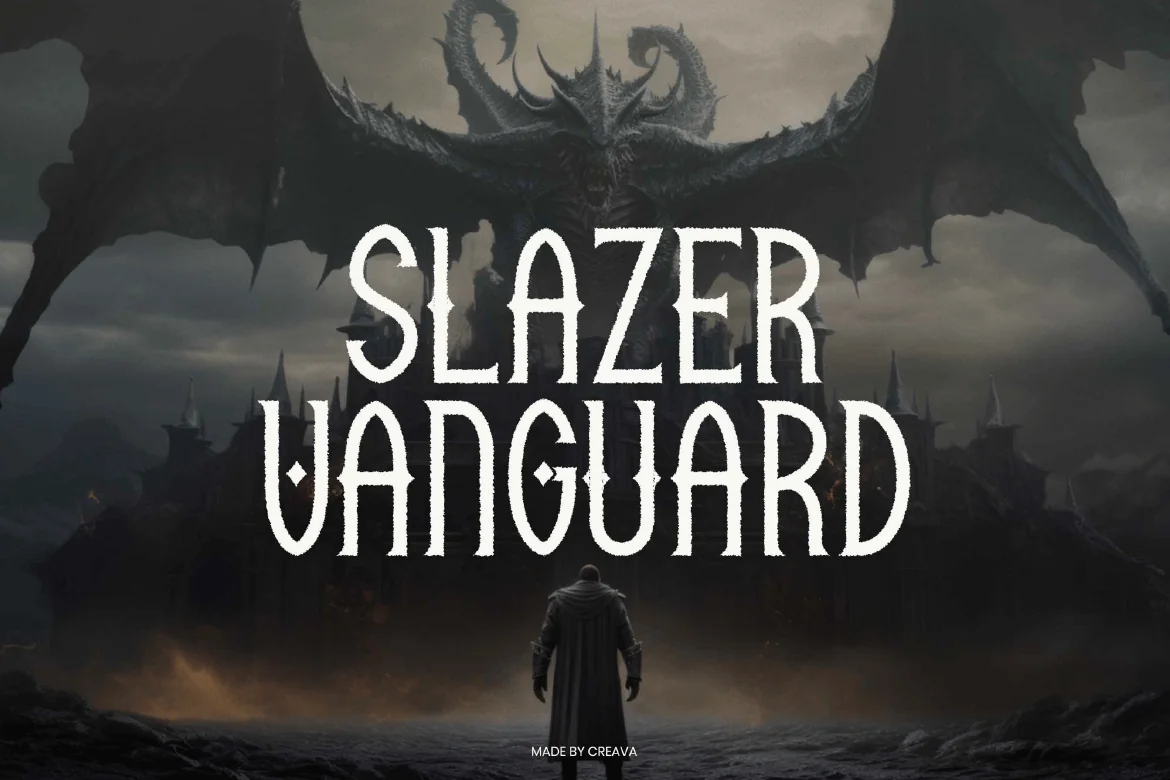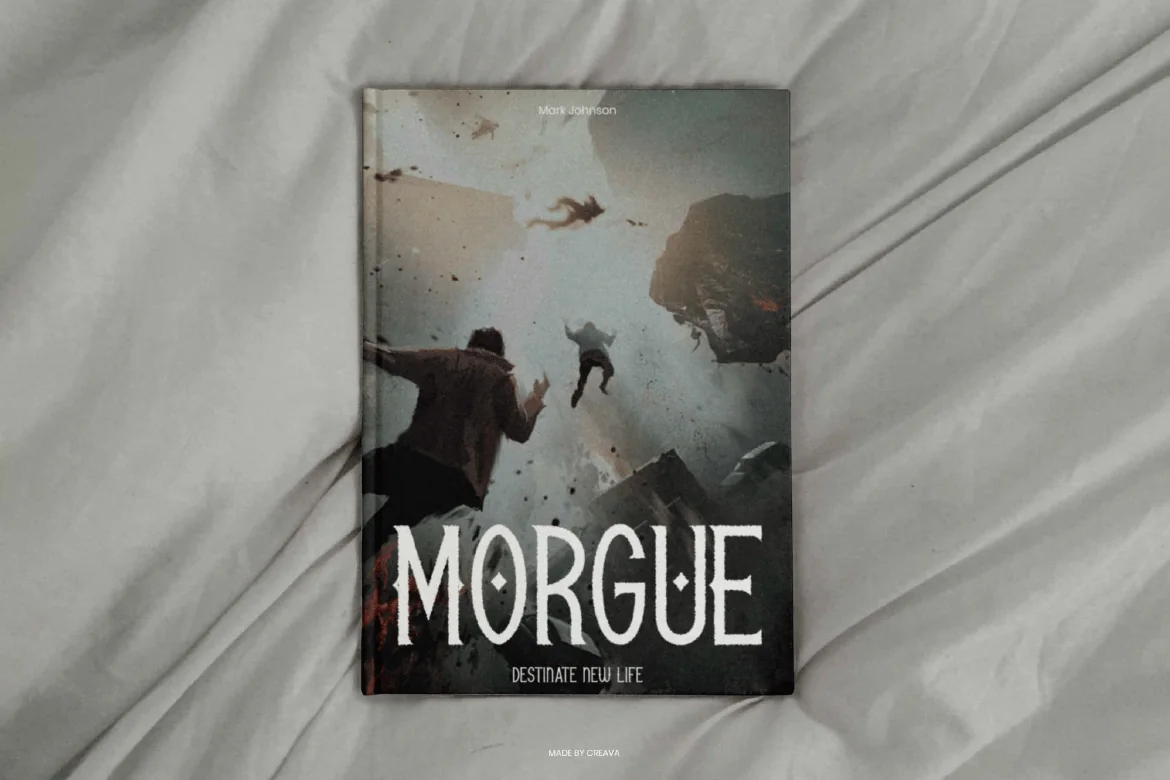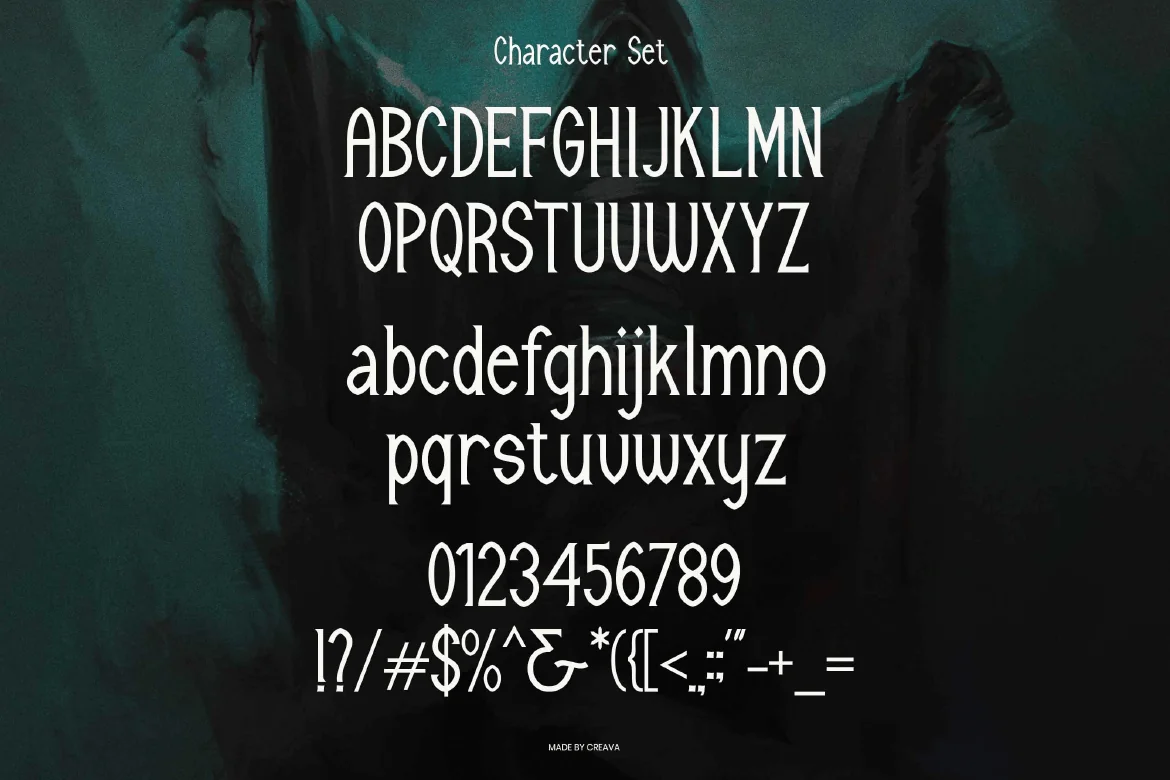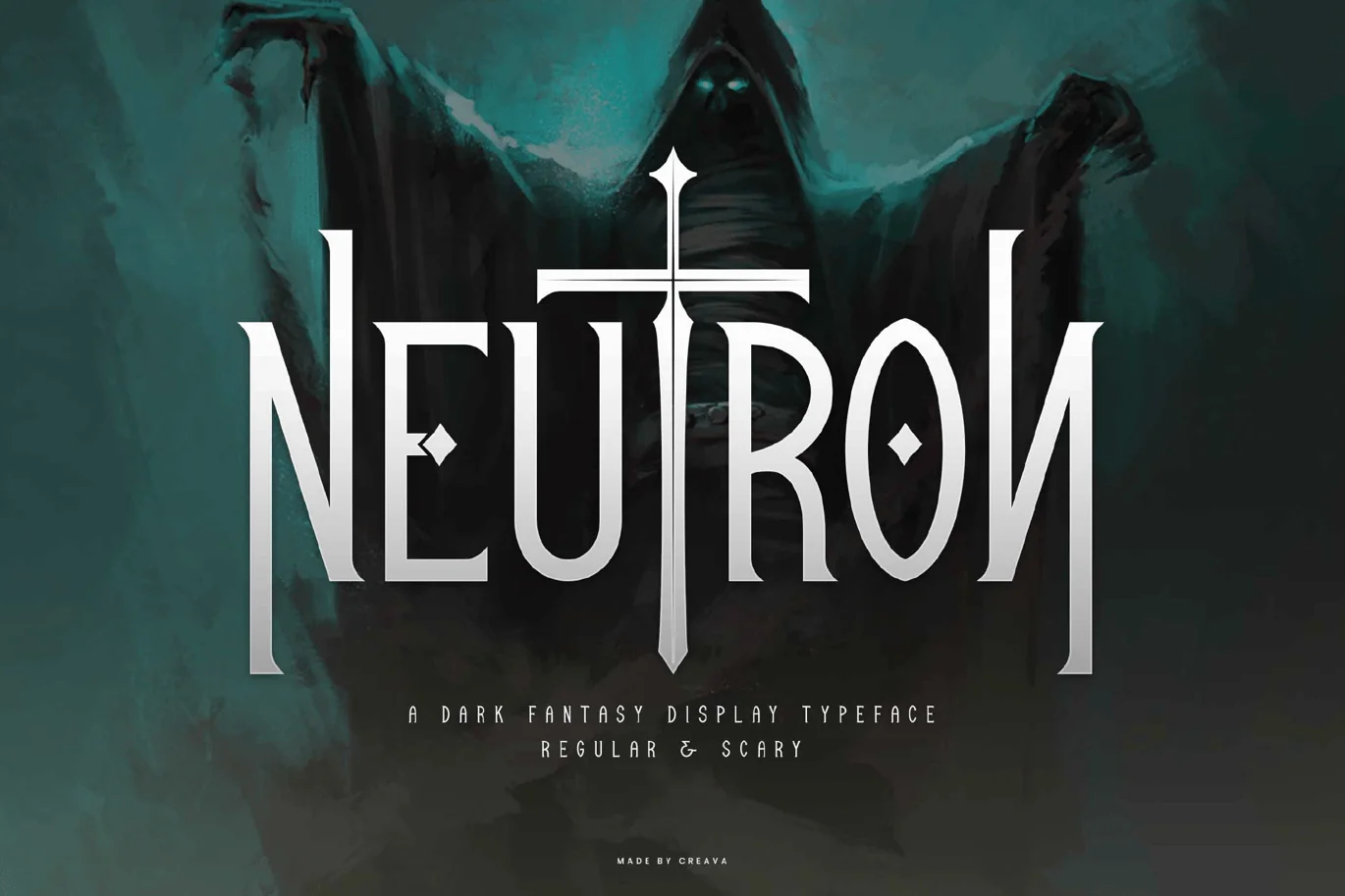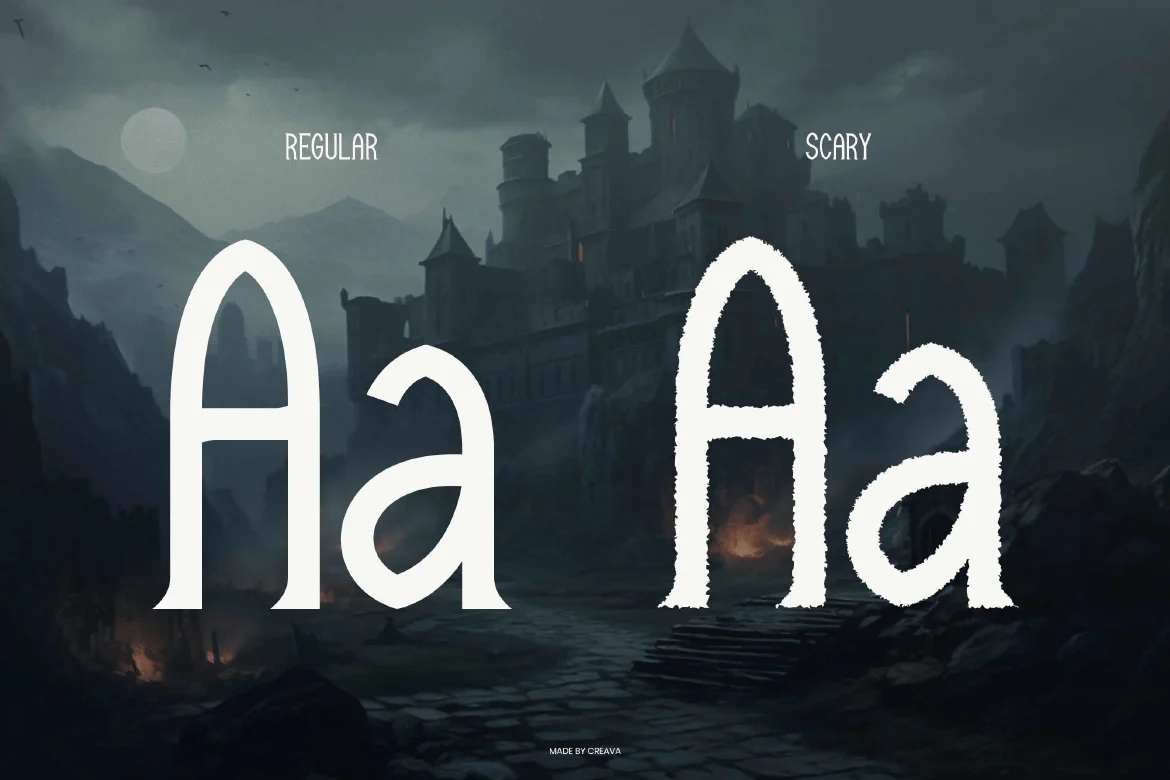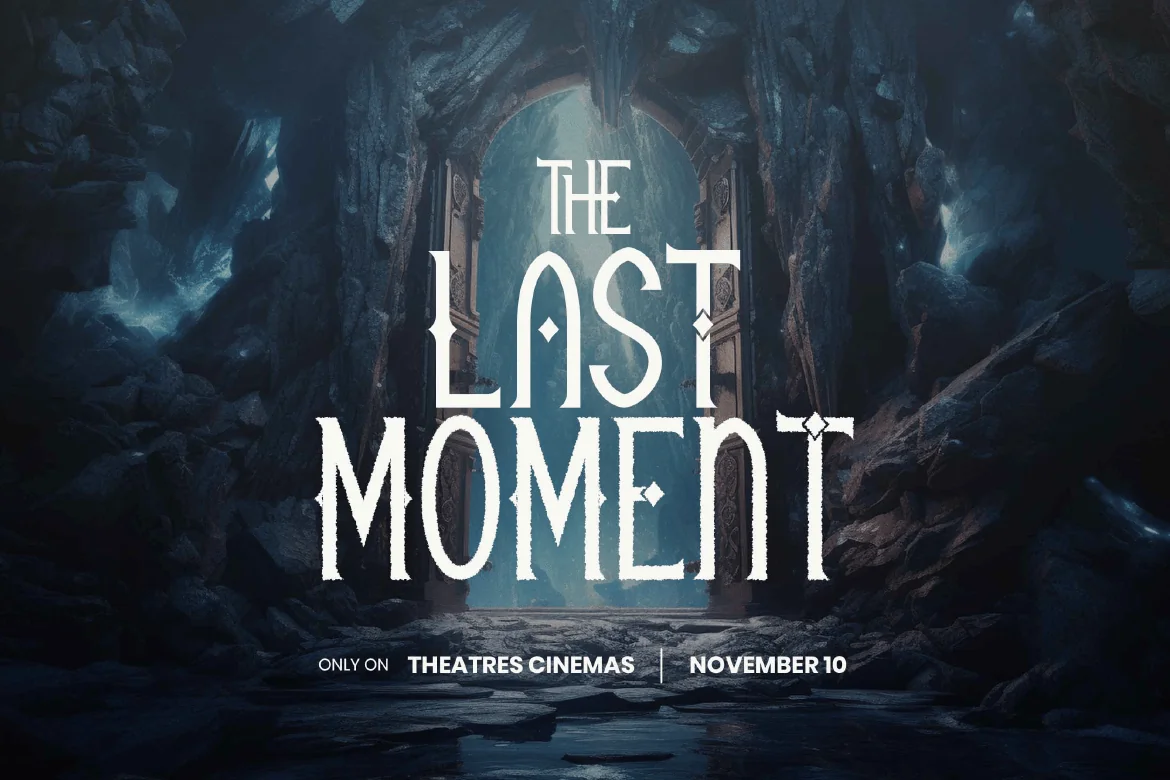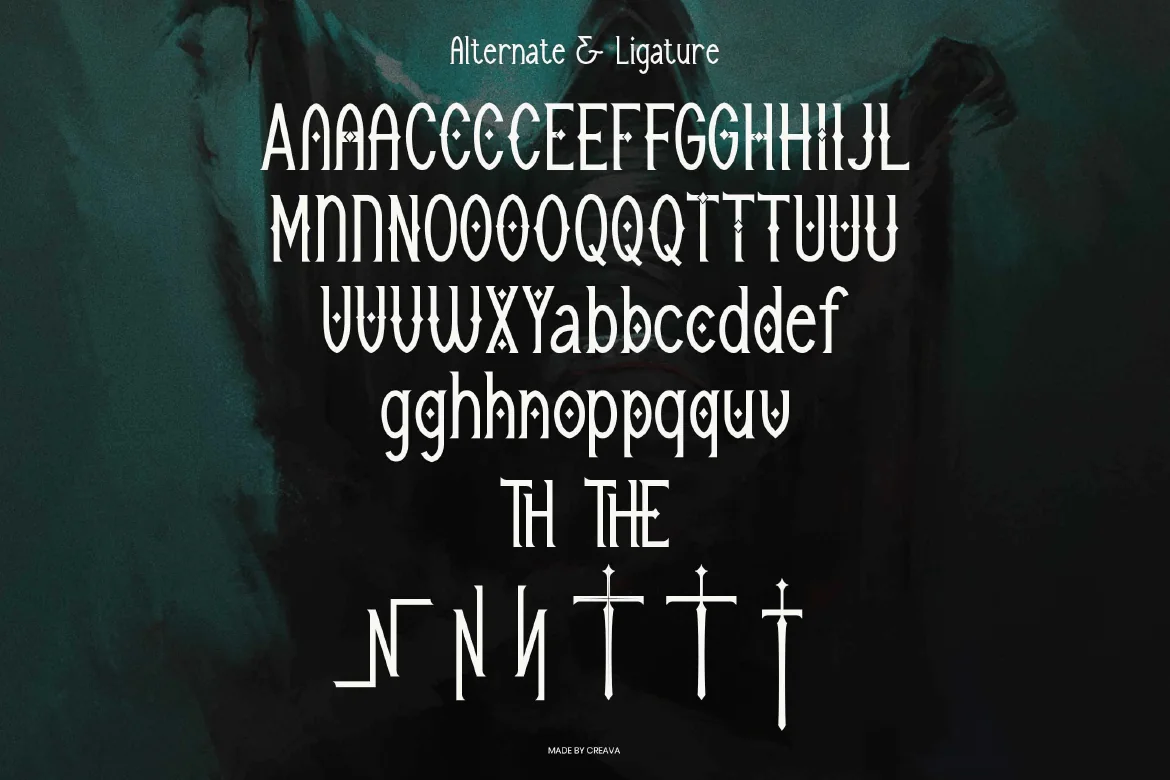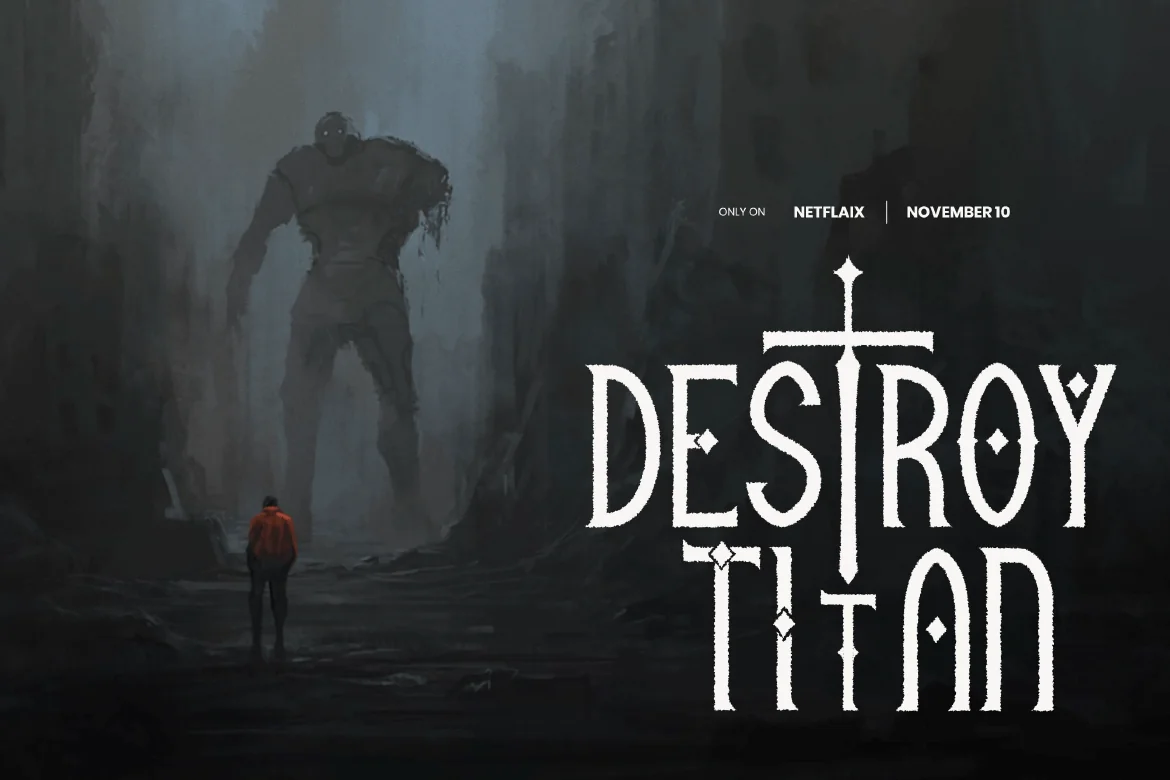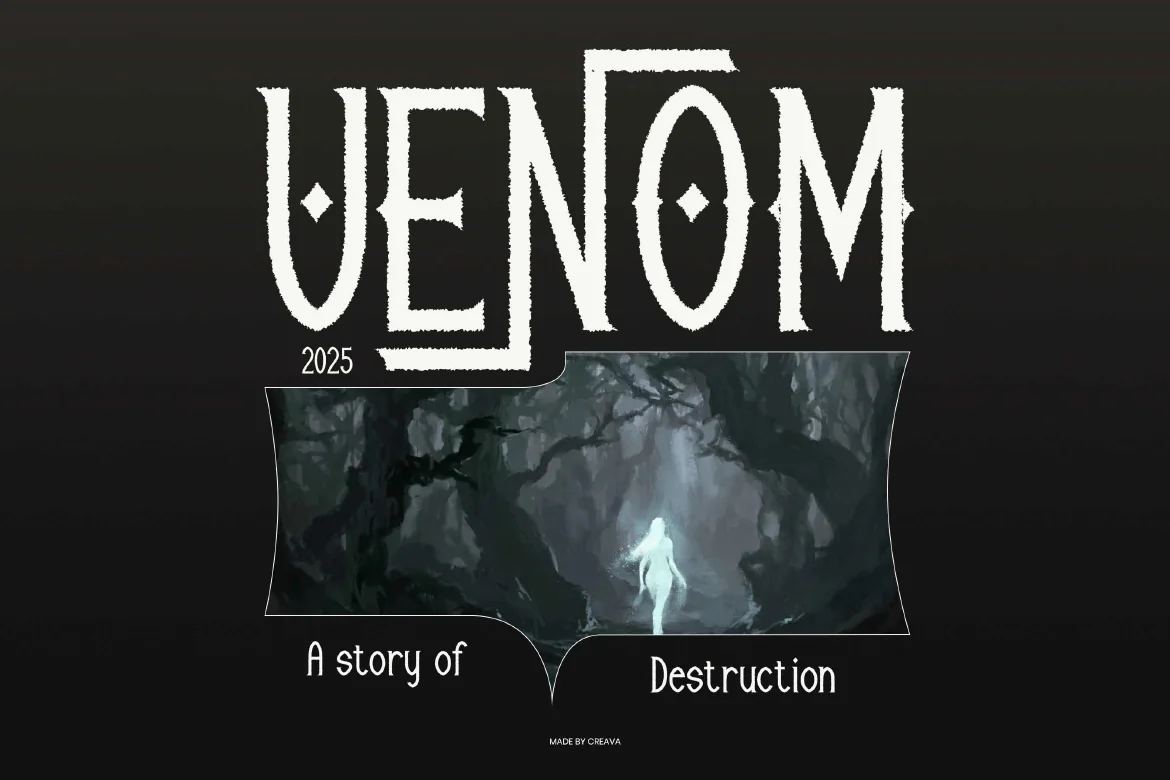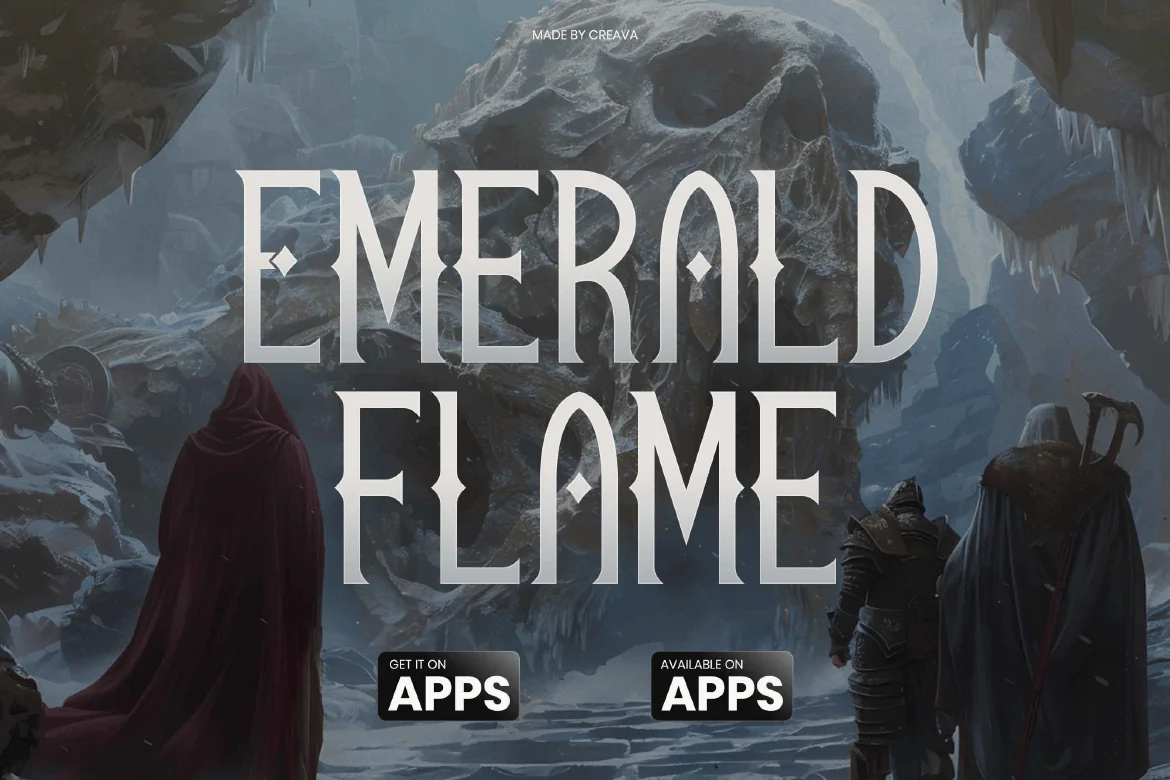
Neutron Mystic Display Font
Neutron is a dark fantasy font that evokes mystery and gothic elegance. With its bold and eerie letterforms, this font is suitable for movie posters, book covers, horror and fantasy-themed projects, gaming titles, album artwork, and mystical branding. Neutron brings a haunting yet captivating touch to any design.
- Uppercase alphabet A-Z
- Lowercase alphabet a-z
- Numbers 0-9
- Some punctuation